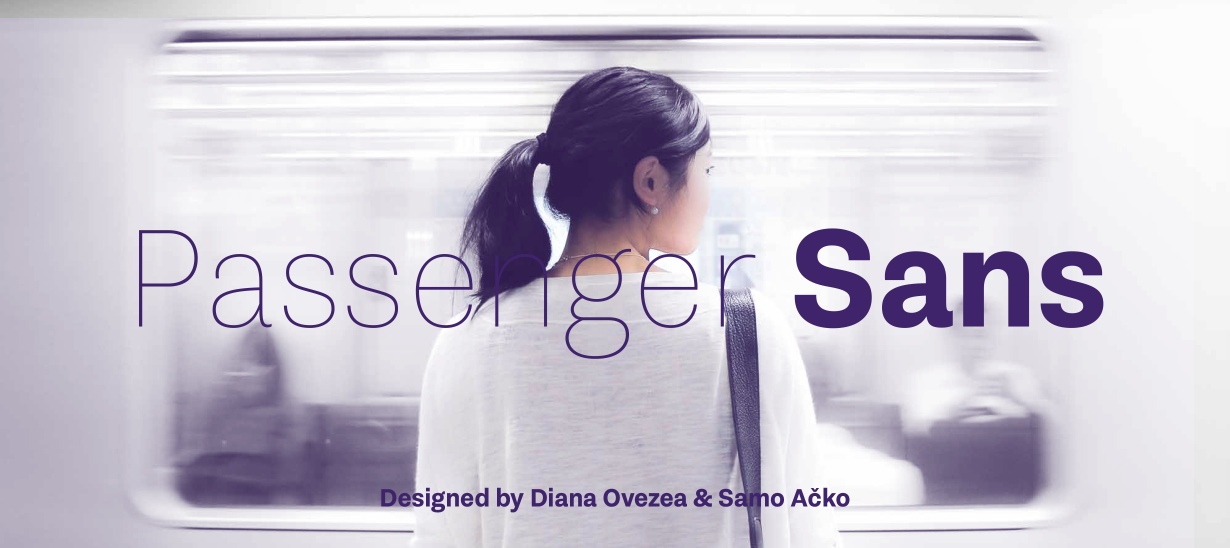
Passenger Sans Font
Passenger Sans Font is perfect for travel agencies, transportation companies, airline communications, modern transit systems, urban mobility platforms, contemporary travel apps, passenger service organizations, journey-focused brands, navigation interfaces, and sophisticated travel lifestyle marketing.
Passenger Sans Font creates excitement because it embodies the smooth efficiency and contemporary sophistication of modern travel with its streamlined letterforms and journey-inspired character design. The font's clean geometry and transit aesthetic instantly convey reliable movement and travel excellence, making any brand appear professionally efficient and authentically travel-focused. Its carefully engineered transit details and passenger-centered character create an immediate sense of journey confidence that captivates audiences seeking travel experiences, transportation quality, and products that celebrate the transformative power of modern mobility and seamless travel experiences.
The Passenger Sans Font family includes multiple weights and styles: Thin, Light, Regular, Medium, Bold, Black, Italic variants for each weight, Condensed, Extended, and Transit versions. Each variant maintains the font's signature travel character while offering comprehensive typographic flexibility for sophisticated transportation systems and travel applications.
This efficient typeface brings the authentic spirit of modern travel into contemporary transportation design with remarkable precision and journey appeal. Passenger Sans Font Free Download provides travel brands and transportation organizations with access to premium journey-inspired typography that embodies the essence of modern mobility and travel excellence. The font's streamlined design and travel authenticity make it ideal for businesses seeking to establish meaningful connections with travel-minded audiences who appreciate efficient transportation, journey experiences, and the transformative power of modern mobility that connects people and places seamlessly. Whether you're developing brand identities for transportation companies, creating materials for travel services, designing interfaces for mobility platforms, or producing content for journey-focused organizations, this font delivers the efficient travel atmosphere that resonates with audiences seeking genuine transportation experiences, travel quality, and the reliable movement that comes from embracing authentic modern mobility solutions. Its versatile design ensures outstanding performance across both professional printed materials and dynamic digital travel platforms while maintaining the character of authentic transportation typography. The font excels in applications requiring travel credibility and transportation appeal. Travel industry professionals appreciate its ability to convey journey authenticity while remaining highly functional for various transportation communications and travel promotional materials. The comprehensive character set includes transit symbols and extensive international language support, making it perfect for global travel brands and international transportation organizations seeking to communicate authentic travel values, transportation excellence, and journey sophistication to diverse worldwide audiences who embrace modern mobility, appreciate efficient travel, and value the transformative power of genuine transportation innovation that creates seamless journeys through reliable service, efficient systems, and the continuous pursuit of travel excellence that connects the world through sophisticated mobility solutions.